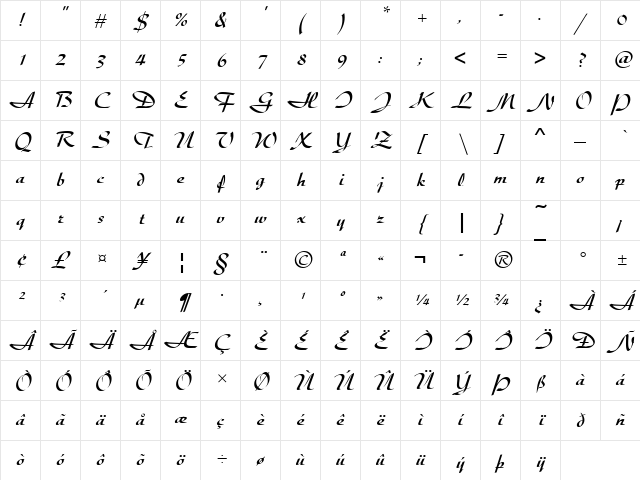
DiskusDMed Regular Free Font
DiskusDMed Regular
Design Context for DiskusDMed
DiskusDMed is a composed and adaptable typeface that performs quietly and consistently across a wide range of design contexts.